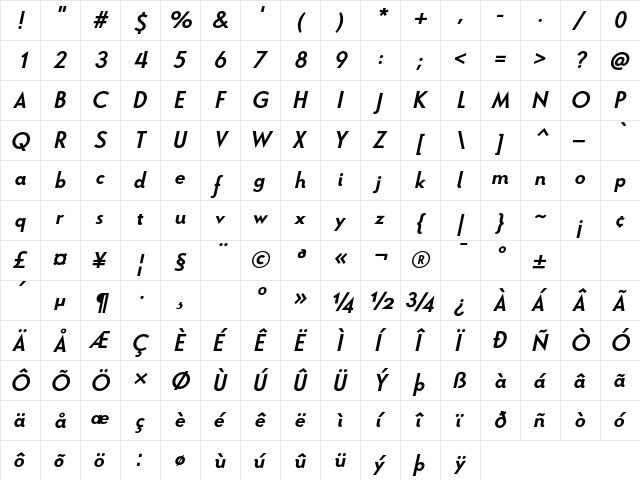
Le Havre Bold Italic Bold Italic
Design Context for Le Havre Bold Italic Typeface
Le Havre Bold Italic is a composed and adaptable typeface that performs quietly and consistently across a wide range of design contexts. The dynamic lean of this cut emphasises speed and emphasis in any layout. Its bold stroke weight gives it real presence on the page.
Pro Tip: Use Le Havre Bold Italic for emphasis, pull quotes, and subheadings where its slanted energy can add rhythm to the layout.